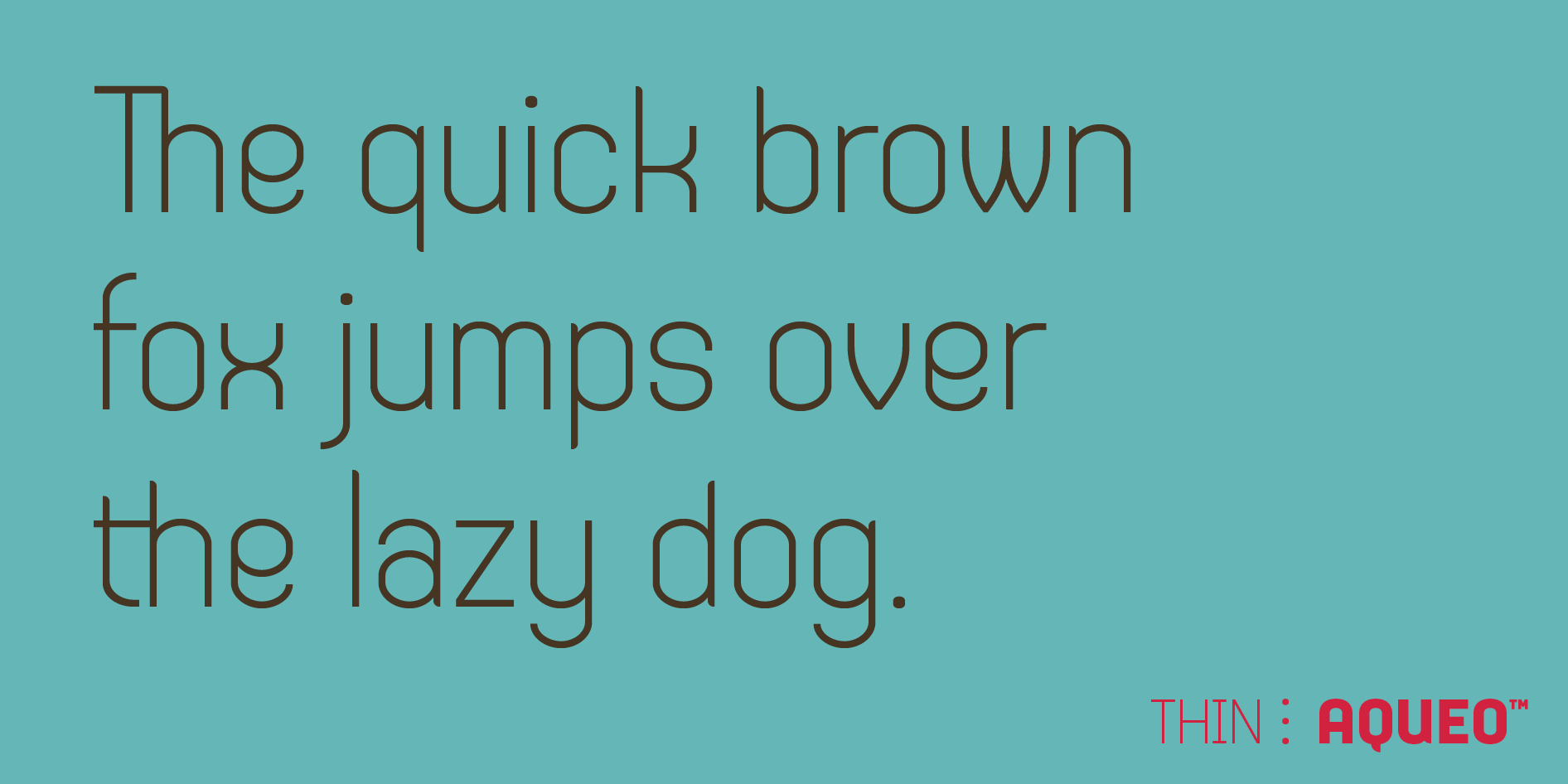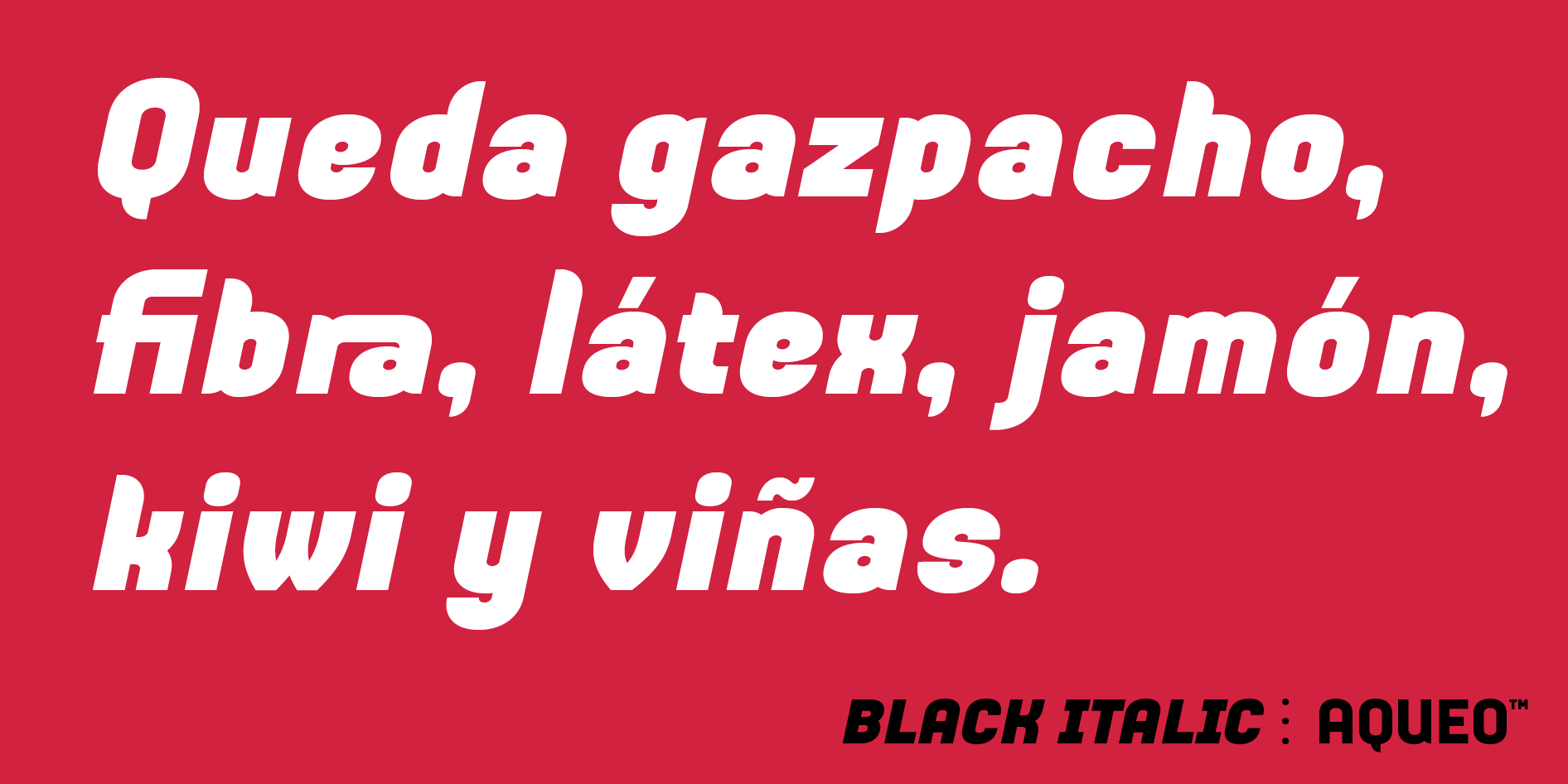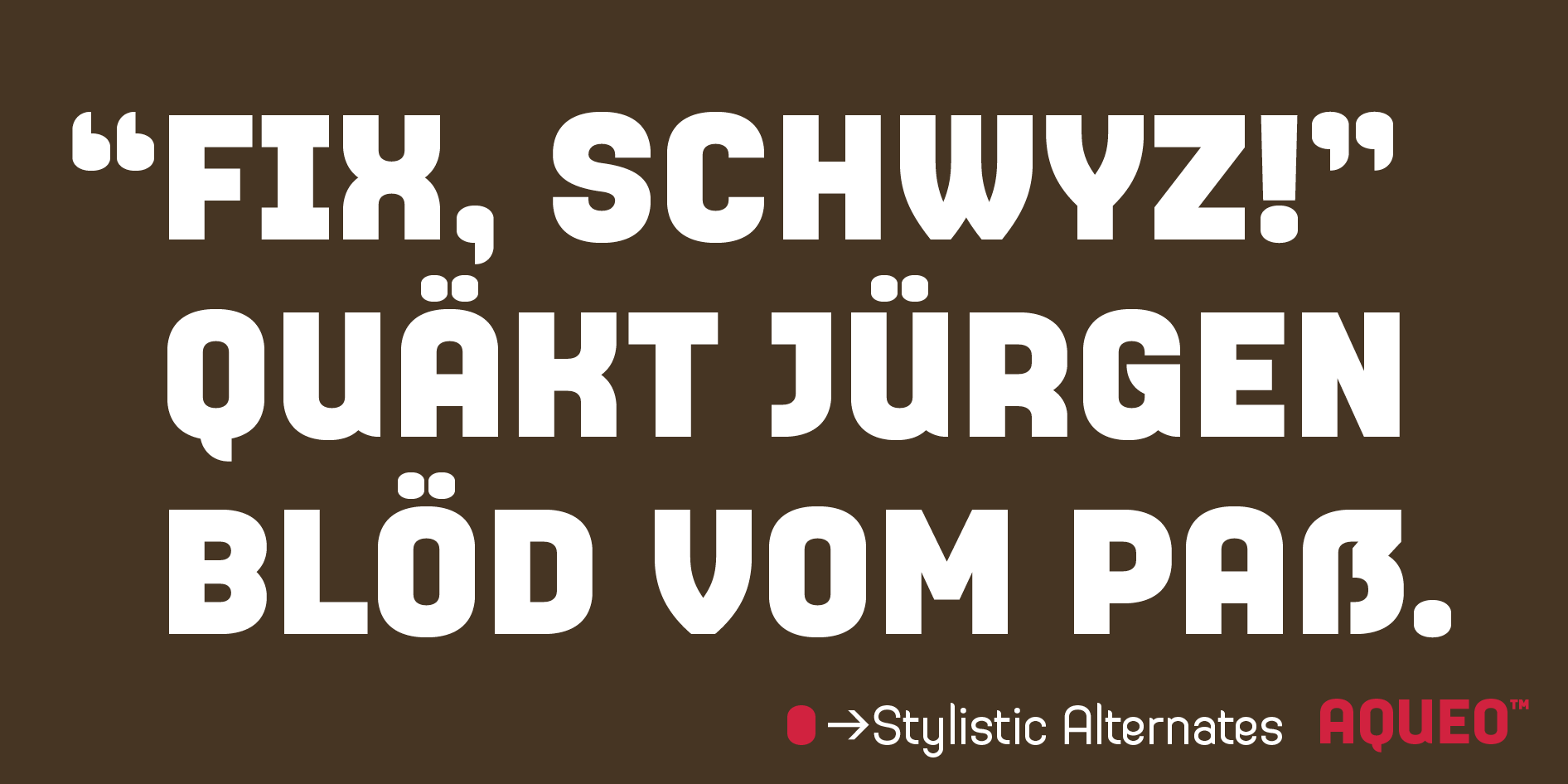
Aqueo™ Cylindrical Display Sans Serif Glyphs & Pangrams
Browse Aqueo™ Cylindrical Display Sans Serif Glyph Tables
Explore the comprehensive Aqueo font family character set. This geometric cylindrical display sans serif includes over 1,100 glyphs across 6 weights and 12 styles, ensuring powerful professional utility. Review the full range of characters, including extensive sets of discretionary ligatures and multilingual support for Latin-based languages, OpenType features, and all currency symbols below.
Review Aqueo™ Geometric Display Typeface Pangrams
See the wide range of Aqueo's distinct styles and language coverage below. This section features pangrams (sentences containing every letter of the alphabet) in multiple languages and an alternate uppercase set to demonstrate the unique display of this cylindrical display sans serif in action.
Animated GIF displaying the English pangram, 'The quick brown fox jumps over the lazy dog,' cycling through all 6 weights of the Aqueo cylindrical display sans serif font family.
English pangram in sentence case – Aqueo black, bold, medium, regular, light, and thin
Animated GIF displaying the German pangram and cycling through the standard and stylistic alternate options for both uppercase and sentence case, highlighted in red, to demonstrate Aqueo's OpenType features.
German pangram typesets in the standard uppercase and sentence case set, and the stylistic alternate uppercase and sentence case set.
Animated GIF displaying the Spanish pangram in sentence case, cycling through all 6 weights of the Aqueo cylindrical display italic font family.
Spanish pangram in sentence cases – Aqueo black italic, bold italic, medium italic, light italic, and thin italic
Romanian pangram set in Aqueo Thin font, showcasing multilingual characters for Eastern Europe.
AQUEO™ THIN FONT
Czech pangram set in Aqueo Thin Italic, highlighting the font's elegant slant and multilingual support.
AQUEO™ THIN ITALIC FONT
Portuguese pangram set in Aqueo Light, demonstrating the cylindrical geometric style in a delicate weight.
AQUEO™ LIGHT FONT
Norwegian pangram set in Aqueo Light Italic, confirming support for Scandinavian language characters.
AQUEO™ LIGHT ITALIC FONT
Icelandic pangram set in Aqueo Regular, showcasing the standard weight's performance with Nordic letters.
AQUEO™ REGULAR FONT
Swedish pangram set in Aqueo Italic, used for evaluating letter structure and flow in a classic slanted style.
AQUEO™ ITALIC FONT
French pangram set in Aqueo Medium, demonstrating the geometric design with French diacritics.
AQUEO™ MEDIUM FONT
Dutch pangram set in Aqueo Medium Italic, an example of the font's legibility in its middle weights.
AQUEO™ MEDIUM ITALIC FONT
German pangram set in Aqueo Bold, showcasing the strong, impactful appearance of the typeface.
AQUEO™ BOLD FONT
Spanish pangram set in Aqueo Bold Italic, demonstrating its suitability for strong display and headline use.
AQUEO™ BOLD ITALIC FONT
English pangram set in Aqueo Black, highlighting the maximum weight and contrast of the typeface.
AQUEO™ BLACK FONT
Italian pangram set in Aqueo Black Italic, the heaviest slanted weight, confirming multilingual character spacing.
AQUEO™ BLACK ITALIC FONT